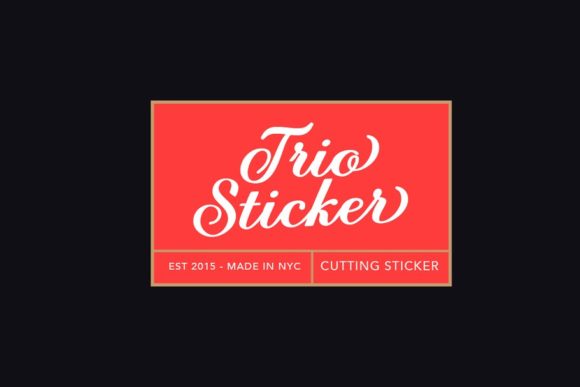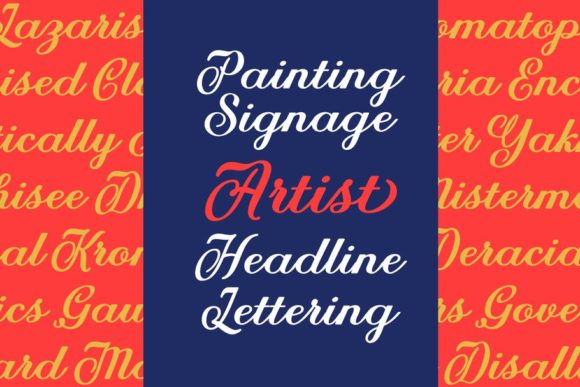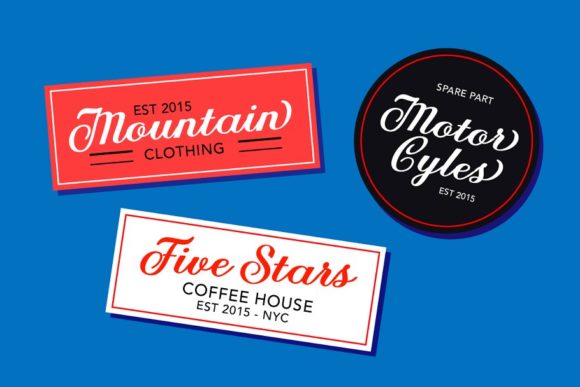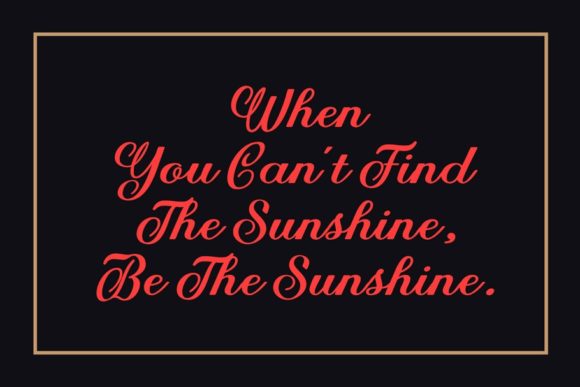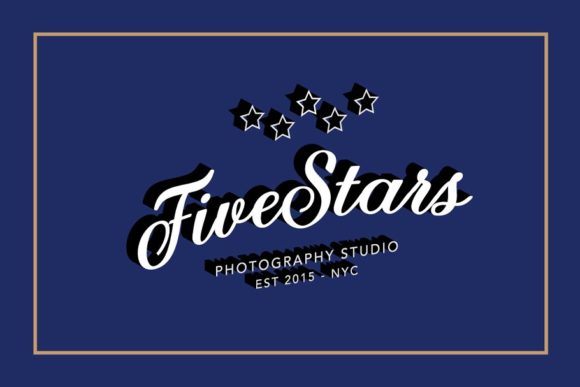
Achelan Font
About Achelan Font
Achelan Script is a highly legible font that combines elegance and charm. Use it to add a vintage look to any design idea!